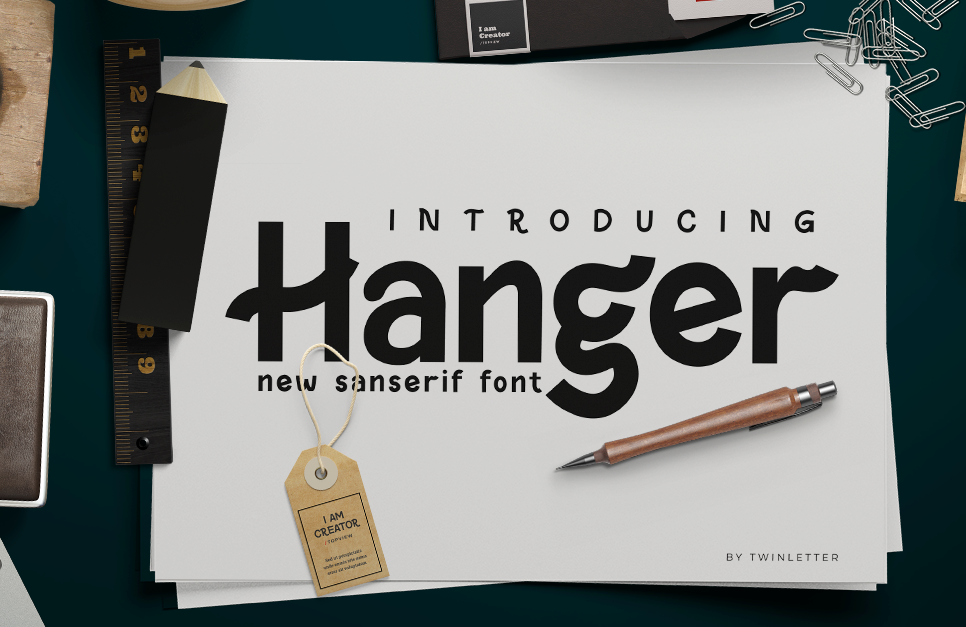
Hanger Font
introduce our newest sans serif namely Hanger font. This font is a mixture of modern and classic styles, cleanliness, and irregular shape representing the future, while its elegant indentations mimic old-style typography, thick-thin fonts to beautify the appearance. Gigih fonts are very flexible, you can use them in many fields of design, for example: title, editorial, quotation writing, tee/poster design, logos, watermarks, brands, etc. Packed with many glyphs (including OpenType characters), let's use this font for your amazing project design!
- Glyphs consist of standard characters, numbers, and punctuation (OpenType Standard encoding),
- multilingual character support
- OpenType features such as alternative characters, style sets,
- PUA (Private Use Area) Encoded Characters (You can access OpenType features without additional design software),